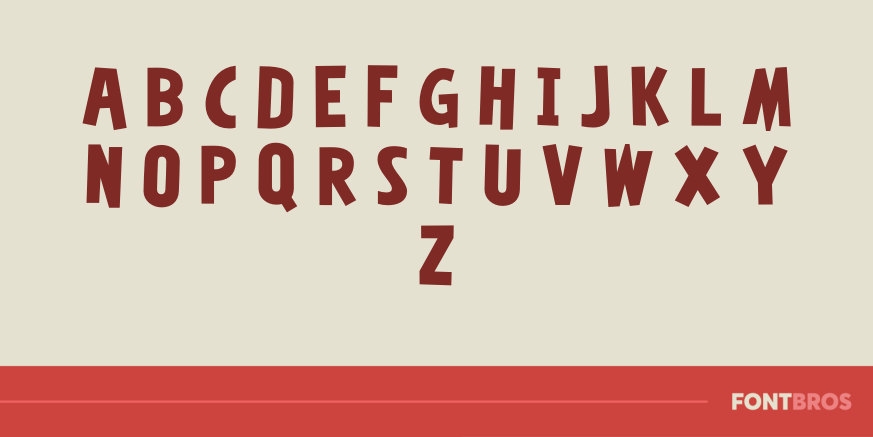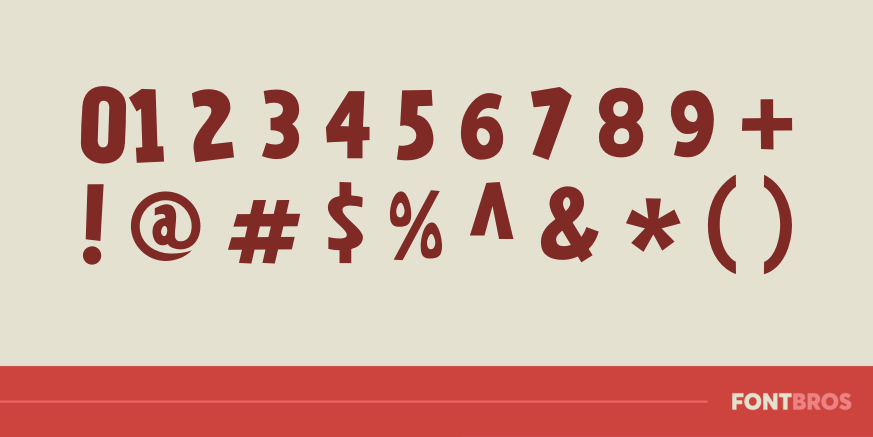
Kentuckyfried
Font Family by Font Diner
Kentuckyfried is a retro sans serif with a fun, groovy streak and a distinctly wacky personality. Its playful shapes give it a lively, offbeat feel that nods to mid-century display lettering, making it an easy choice when you want something expressive rather than neutral.
Offered as a single style from Font Diner, this design is well suited to posters, logos, packaging, signage, and other display work that benefits from a bold vintage mood. If your project calls for 1940s through 1970s flavor with a lighthearted edge, this face brings plenty of character to the page.